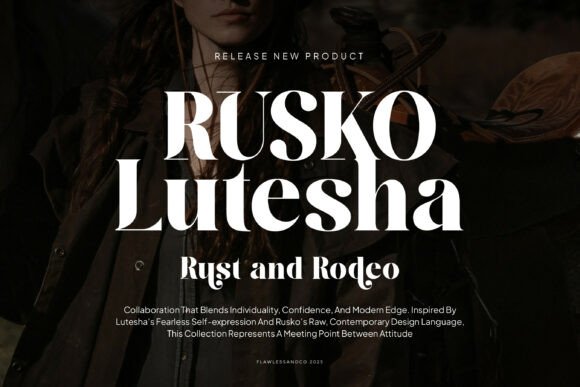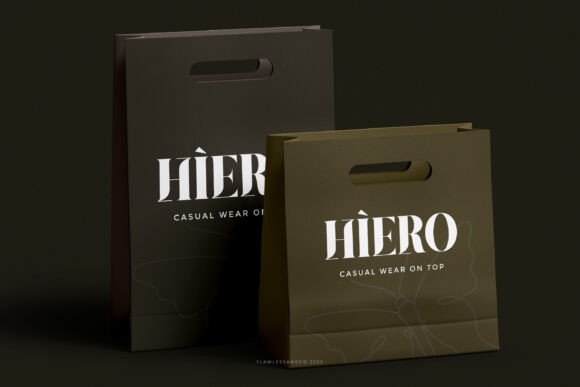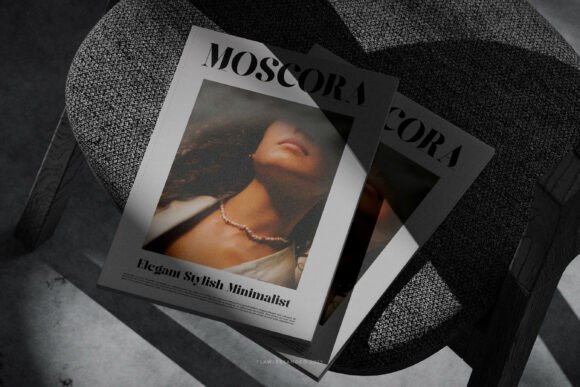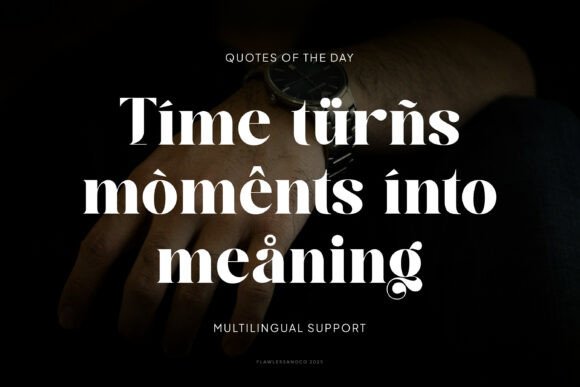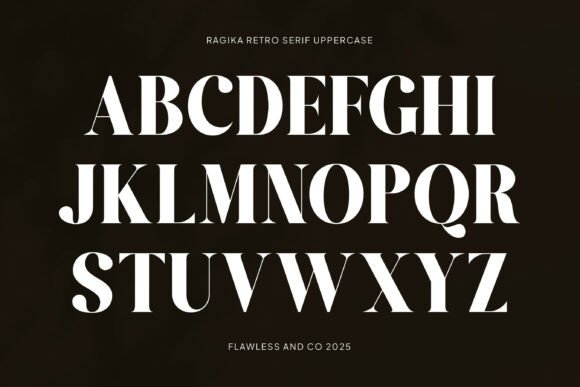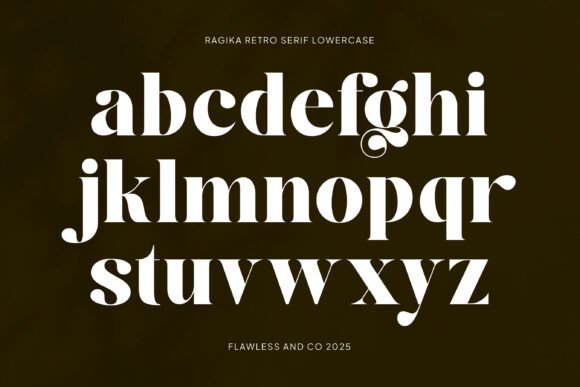
Introduction to Ragika Font
Have you ever stumbled upon an old book or a vintage photograph and felt an instant connection to the past? The nostalgia washes over you, and you’re transported to a bygone era. As designers, we often strive to evoke this same feeling in our work, and that’s where the Ragika Font comes in.
With its elegant retro serif design, the Ragika Font is the perfect tool for creating designs that feel both timeless and sophisticated. Whether you’re working on a free download for a design resource or a high-quality print project, this font is sure to bring a touch of warmth and personality to your work.
As a valuable asset for designers, the Ragika Font offers a unique blend of classic charm and modern style, making it an essential addition to any design arsenal. From logos to brochures, its versatility is unmatched, and with a transparent background, the possibilities are endless.
Key Features of Ragika Font
- This font features a transparent background, allowing for seamless integration with various design elements.
- Its unique, elegant design makes it perfect for use in creative projects, such as logos, branding materials, and typography-based art.
- This versatile font can be used in a variety of applications, from print materials to digital displays, thanks to its high-quality design and transparent background.
Honest Review: Ragika Font
As a designer, I’m always on the lookout for high-quality design resources to enhance my creative projects. Recently, I had the chance to work with the Ragika Font, and I must say it’s been a great addition to my design arsenal.
- ✨ Elegant and modern design aesthetic that adds a touch of sophistication to any project.
- ✨ High-quality glyphs and characters that make it perfect for use in logos, branding, and marketing materials.
- ⚠️ Limited language support, which may be a concern for designers working on projects that require multiple language support.
- ⚠️ The font does not support transparent backgrounds, which may limit its use in certain design scenarios.
Overall, I’m impressed with the Ragika Font’s potential and versatility. While it may have some limitations, its high-quality design and free download option make it a valuable resource for designers working on creative projects. With a bit of creativity and experimentation, I believe this font can be a great addition to any design toolkit.
Getting the Most Out of the Ragika Font
To get the most out of the Ragika Font, experiment with different font sizes, colors, and styles. Use the font with a transparent background to create visually appealing graphics. You can also combine the Ragika Font with other design elements, such as images and shapes, to create unique and eye-catching designs.
The Ragika Font is ideal for a variety of creative projects, including social media graphics, posters, flyers, and presentations. Its high-quality design and transparent background make it perfect for creating visually appealing and engaging content.